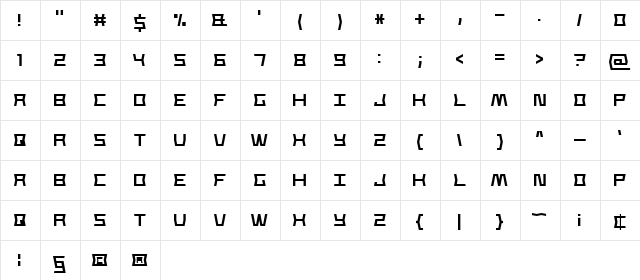
Strong Line 7 Regular
| Foundry | Style-7 |
| Designer | Sizenko Alexander |
Design Context for Strong Line 7 Typeface
Strong Line 7 offers clean, dependable letterforms without strong stylistic allegiance, making it a practical choice for designers who need flexibility.